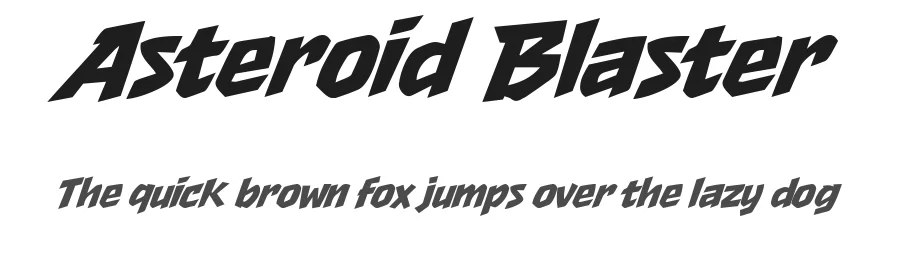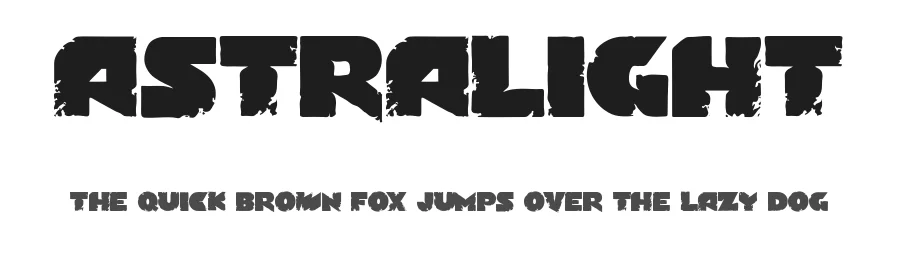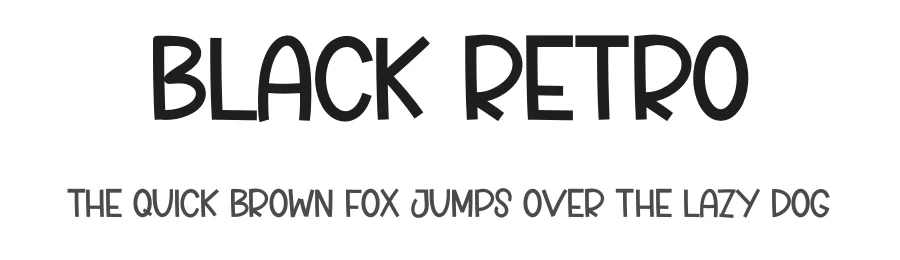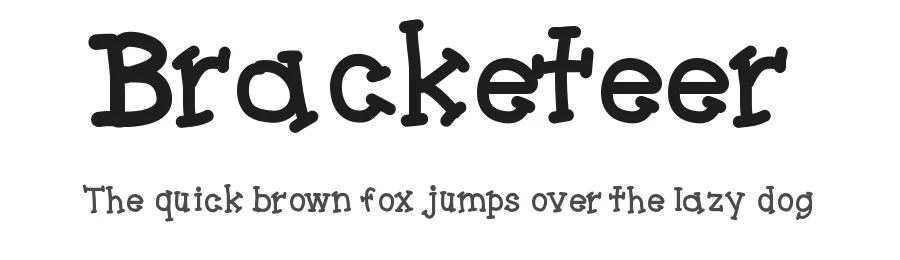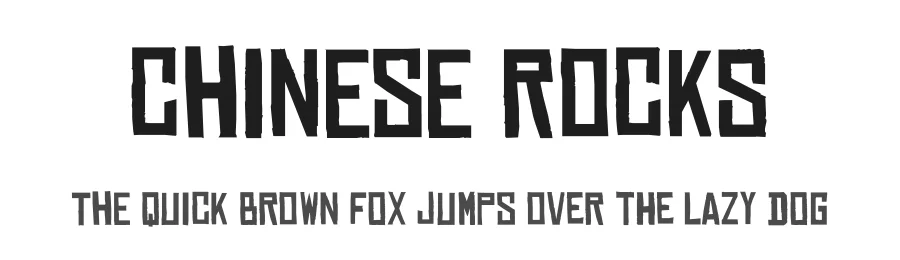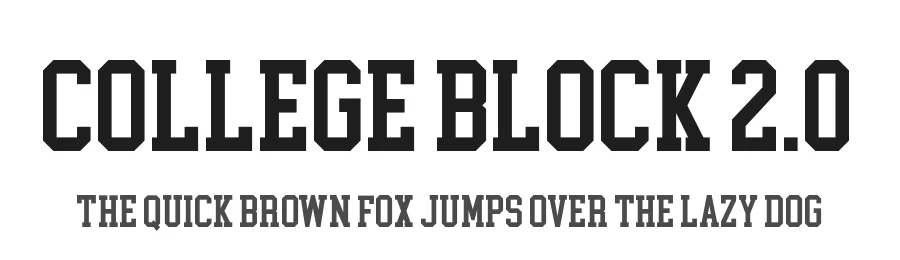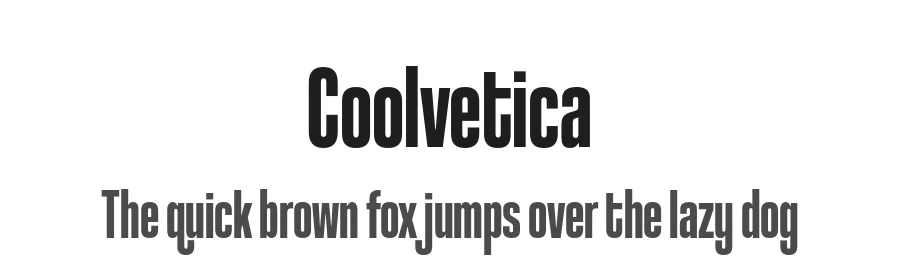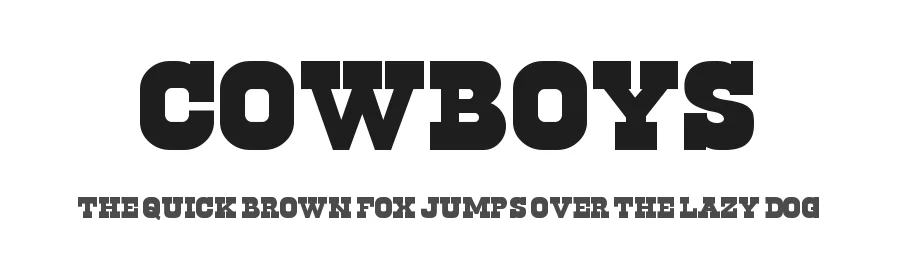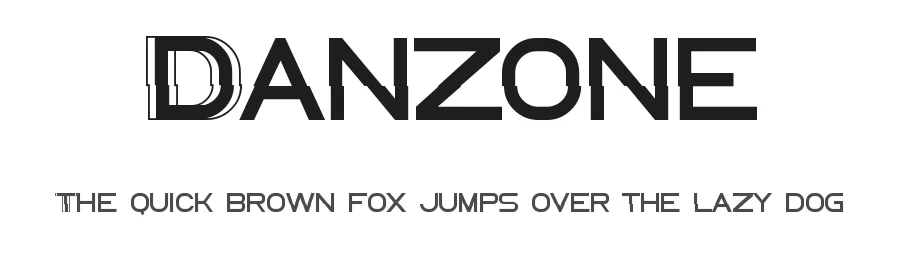
Free Sublimation Fonts — Etsy Sellers, Tees & Tumblers 2026
Sublimation-ready fonts hand-picked for Etsy print-on-demand sellers, Cricut tumbler shops, and DTF tee designers. 30 free fonts covering bold script, retro varsity, modern serif, and bouncy hand-lettering — perfect for Mama tees, mug designs, faith shirts, mom-life sweatshirts, and trending Y'all / Boho / Game Day product lines. All free to download from FontBoxDL with personal-use licenses for craft makers and small business owners.
Best Free Fonts for Sublimation, Tees & Tumblers
Sublimation sellers know that the difference between a $5 mug and a $25 mug often comes down to typography. Whether you''re running an Etsy shop, building a Shopify storefront, or printing locally for craft fairs, these 30 free fonts cover the top-selling sublimation niches in 2026 — Mama tees, faith apparel, Game Day cheer shirts, Y''all Southern designs, and Boho mom-life sweatshirts.
Bouncy Script for Mama & Mom-Life Tees
Hesthiya, Misthycal, Astralight, and Bighried Ranbell are the bouncy script style that dominates Etsy''s "Mama" and "Mom Life" categories. Pair them with a clean serif tagline for a balanced product mockup.
Bold Serif for Faith & Inspirational Apparel
Springsteel Serif, Estoria, and Devotee bring the heritage feel that "Blessed", "Saved", and "Faith Over Fear" designs need. Heavy weights press cleanly through sublimation onto white polyester.
Varsity & College Block for Game Day
College Block 2.0, Octin College Free, Octin Sports Free, Octin Stencil Free, and Octin Spraypaint Free are the varsity workhorses for cheer mom tees, school spirit hoodies, and team tumbler designs.
Retro & Vintage Display
Pricedown, Rockstar, Coolvetica, Black Retro, Ninteen 77, and Mexcellent tap into the 70s-revival aesthetic that''s exploded across Etsy''s Boho and Retro Mama categories.
Heavy Display for Statement Pieces
Heavy Heap, Chinese Rocks, Bracketeer, Gunplay, and Asteroid Blaster read at a glance on tumblers and mugs — bold strokes survive heat-press color shift on white substrates.
Western & Country for Y''all Designs
Cowboys, Lemunost Western, Earwig Factory, and Danzone bring the Nashville-meets-Texas vibe for Southern "Y''all" and country-music inspired tees.
Tips for Sublimation & DTF Sellers
Yes. DTF works well with the same bold-stroke fonts recommended for sublimation. Heavy Heap, Chinese Rocks, and the Octin family are particularly DTF-friendly.
What's the trending font style for Etsy Mama tees in 2026?
Bouncy script (Hesthiya, Bighried Ranbell, Astralight) paired with bold serif taglines (Springsteel Serif, Estoria). This combo dominates Etsy's top-selling Mama and Mom Life listings.